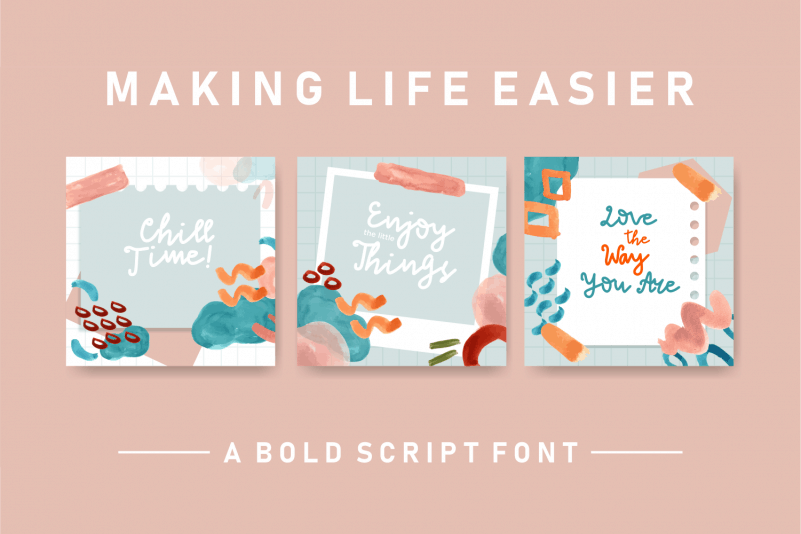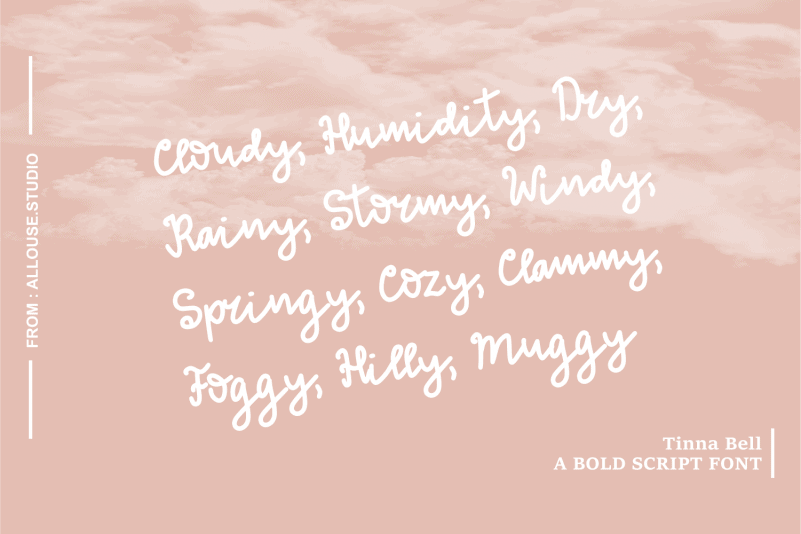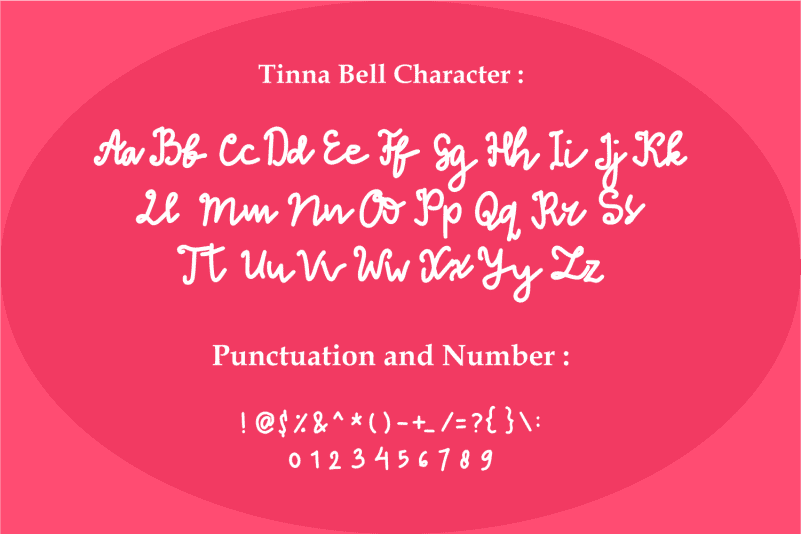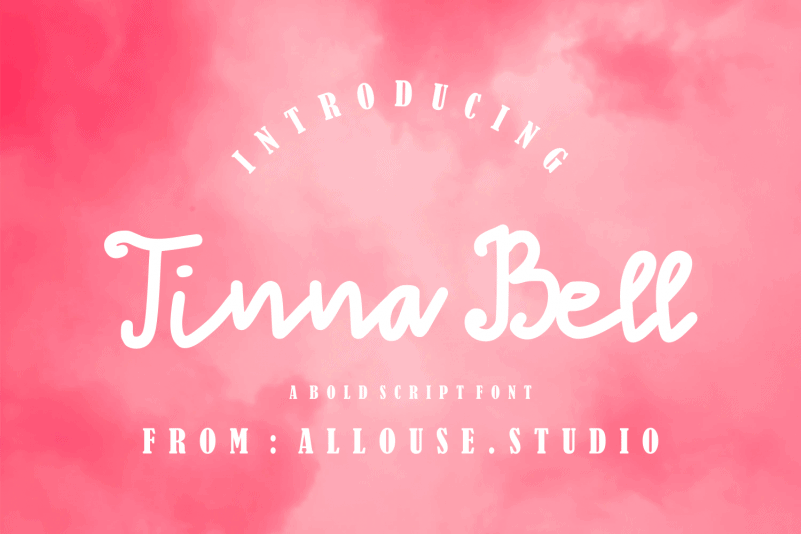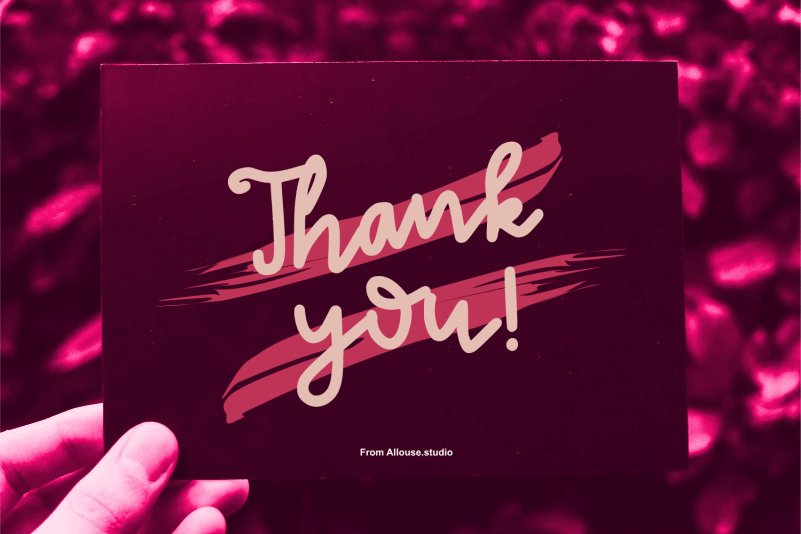
Tinna Bell Handwritten Font is perfect on any tittle, product packaging, branding project, megazine, social media, wedding, or just used to express words above the background.